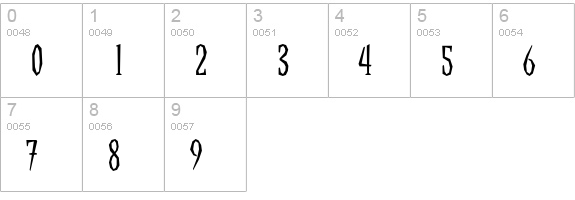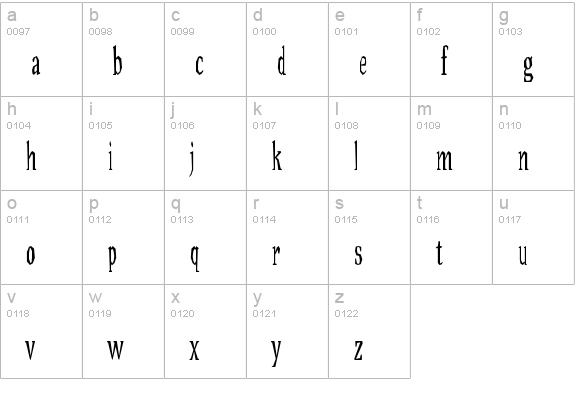
Bradley Font Details
Bradley font is a classic and elegant typeface that exudes sophistication and charm. With its timeless appeal and versatile design, Bradley font is perfect for a wide range of creative projects, from branding to editorial design. Its distinctive letterforms and unique character make it stand out from the crowd, adding a touch of class to any composition. And the best part? Bradley font is completely free to download at FontsMarket.com! This means you can access this high-quality typeface without any cost, making it a valuable addition to your font collection. Don't miss out on this opportunity to enhance your designs with the beauty and elegance of Bradley font. Download it today and elevate your creative projects to new heights.